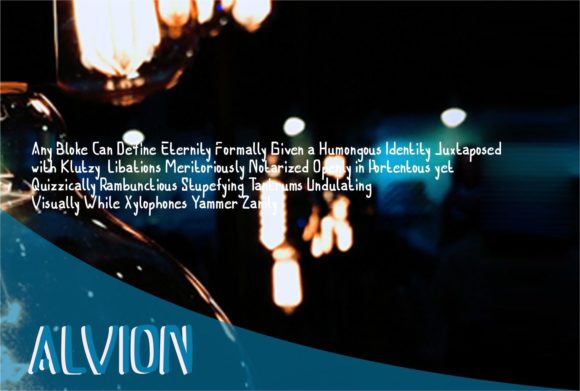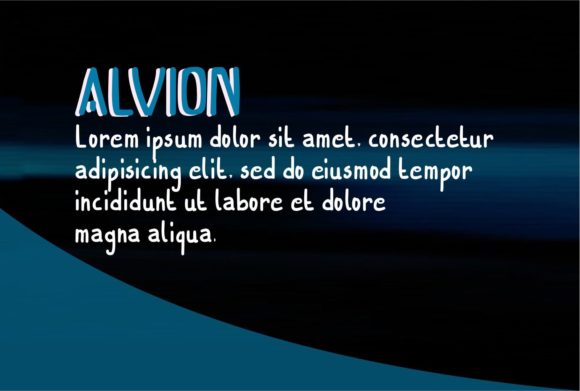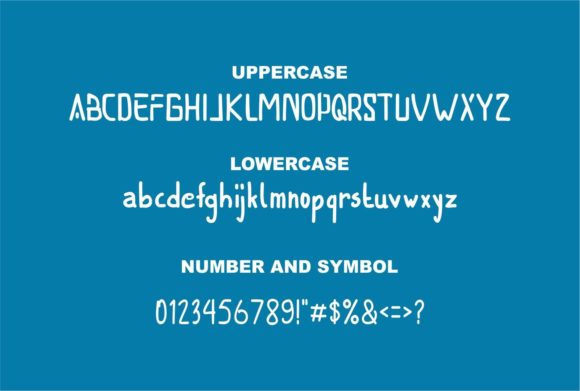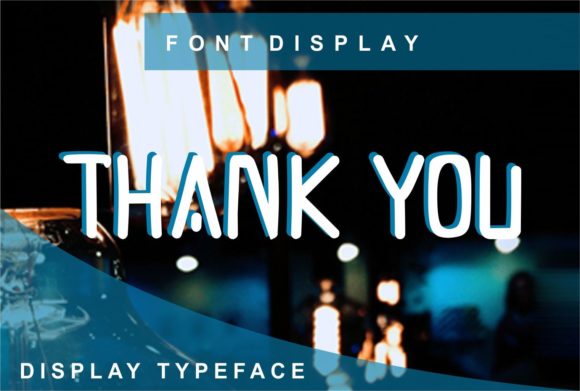
The Moment of Design Inspiration
Have you ever been stuck on a design project, staring blankly at a blank canvas, and suddenly, a burst of creativity strikes? That’s exactly what happened to many designers who discovered Alvion Font – a clean and adaptable display font that brings their designs to life.
Alvion Font is a versatile tool designed to elevate any poster, flyer, or print. Its clean lines, modern feel, and endless possibilities make it the perfect companion for designers looking to create stunning visual content. Whether you’re working on a large-scale campaign or a small, intimate project, Alvion Font is a valuable asset that can help you bring your vision to reality.
With Alvion Font, the possibilities are endless, and the results are always breathtaking. Whether you’re a seasoned designer or just starting out, this font is sure to inspire and guide you in creating truly unforgettable designs.
Alvion Font Key Features
- Font Family: Alvion comes in two font families – Regular and Bold, each with 12 styles.
- Font Size: The font is available in a range of sizes, from 8pt to 72pt, making it suitable for use in a variety of applications.
- Resolution: Designed for use at high resolutions, Alvion font looks great at resolutions of 300 DPI or higher.
- Unique Characteristics: Alvion font features a unique blend of modern and vintage elements, with a distinctive, hand-drawn feel that sets it apart from other fonts.
Alvion Font Review
When I first saw Alvion Font, I was immediately drawn to its clean and elegant design. The font’s sleek lines and modern aesthetic make it a great choice for any project that requires a touch of sophistication. ✨ The font’s versatility allows it to be used in a wide range of applications, from headings to body text, and it looks great in both digital and print formats.
One of the things I like most about Alvion Font is its OpenType features, which allow for advanced typographic controls. This makes it a great choice for designers who want to add a bit of personality to their text. ✨ The font also includes a wide range of languages, making it a great choice for projects that require international support.
While Alvion Font is a great choice for many projects, there are a few limitations to consider. ⚠️ The font’s weight range is a bit limited, with only a few weights available. This may make it difficult to achieve a wide range of typographic effects. ⚠️ Additionally, the font may not be suitable for projects that require a lot of bold or italic text.
Overall, I’m very impressed with Alvion Font. Its clean design, versatility, and advanced features make it a great choice for any project that requires a touch of sophistication. While it may have some limitations, I think it’s a great addition to any designer’s toolkit.
- OpenType features for advanced typographic controls
- Wide range of languages supported
- Clean and elegant design
- Works well in both digital and print formats
Alvion Font Practical Application Guide
Getting the Most Out of Alvion Font
To get the most out of Alvion Font, consider the following tips:
– Use Alvion Font for titles, headings, and emphasis to create a clear visual hierarchy.
– Experiment with different font sizes and styles to add depth and interest.
– Pair Alvion Font with other fonts to create a unique and visually appealing combination.
Alvion Font is commonly used for:
– Creative projects, such as posters, flyers, and brochures.
– Branding materials, such as logos and business cards.
– Digital content, such as social media posts and website headers.
Alternatives to Alvion Font for Designers
Open Sans is a modern sans-serif font designed by Steve Matteson. It is ideal for use in digital products, such as websites, apps, and documents, where legibility and readability are crucial. It is a clean and neutral font that works well in various contexts, making it a suitable replacement for Alvion Font.
Comparison: Open Sans is more neutral and versatile than Alvion Font, which has a unique, elegant feel. While Alvion Font is better suited for luxury or high-end branding, Open Sans is more suitable for everyday use.